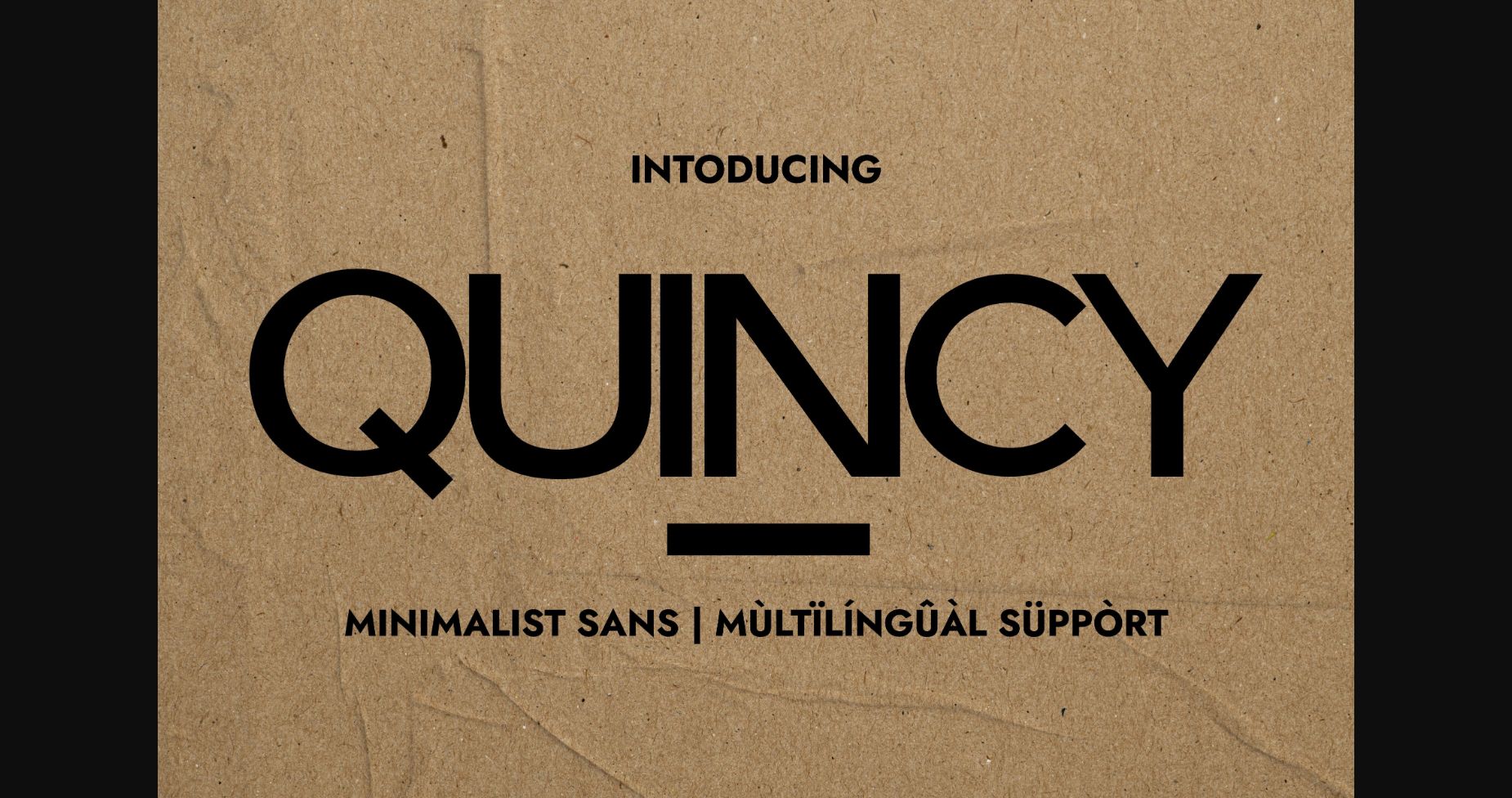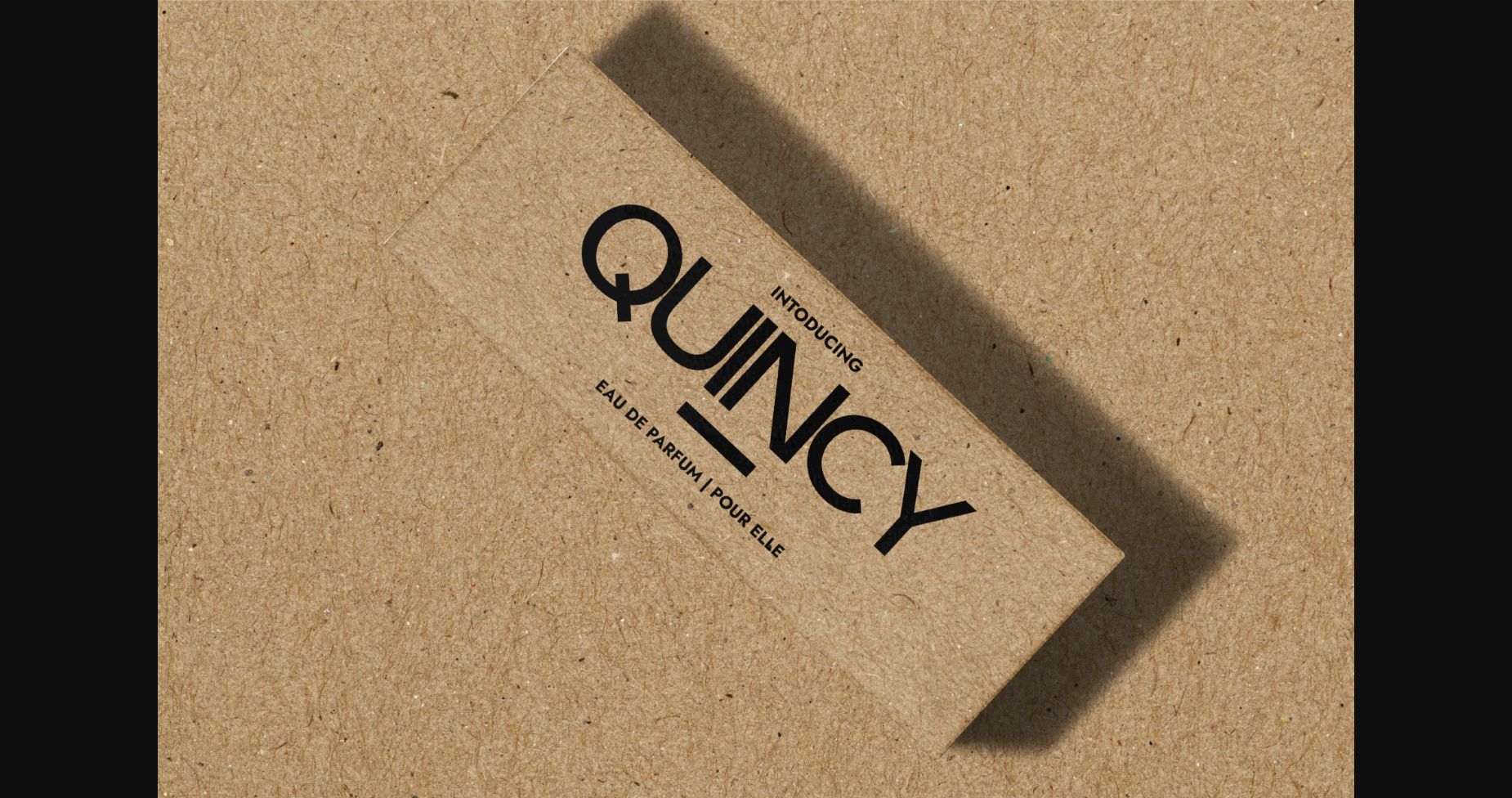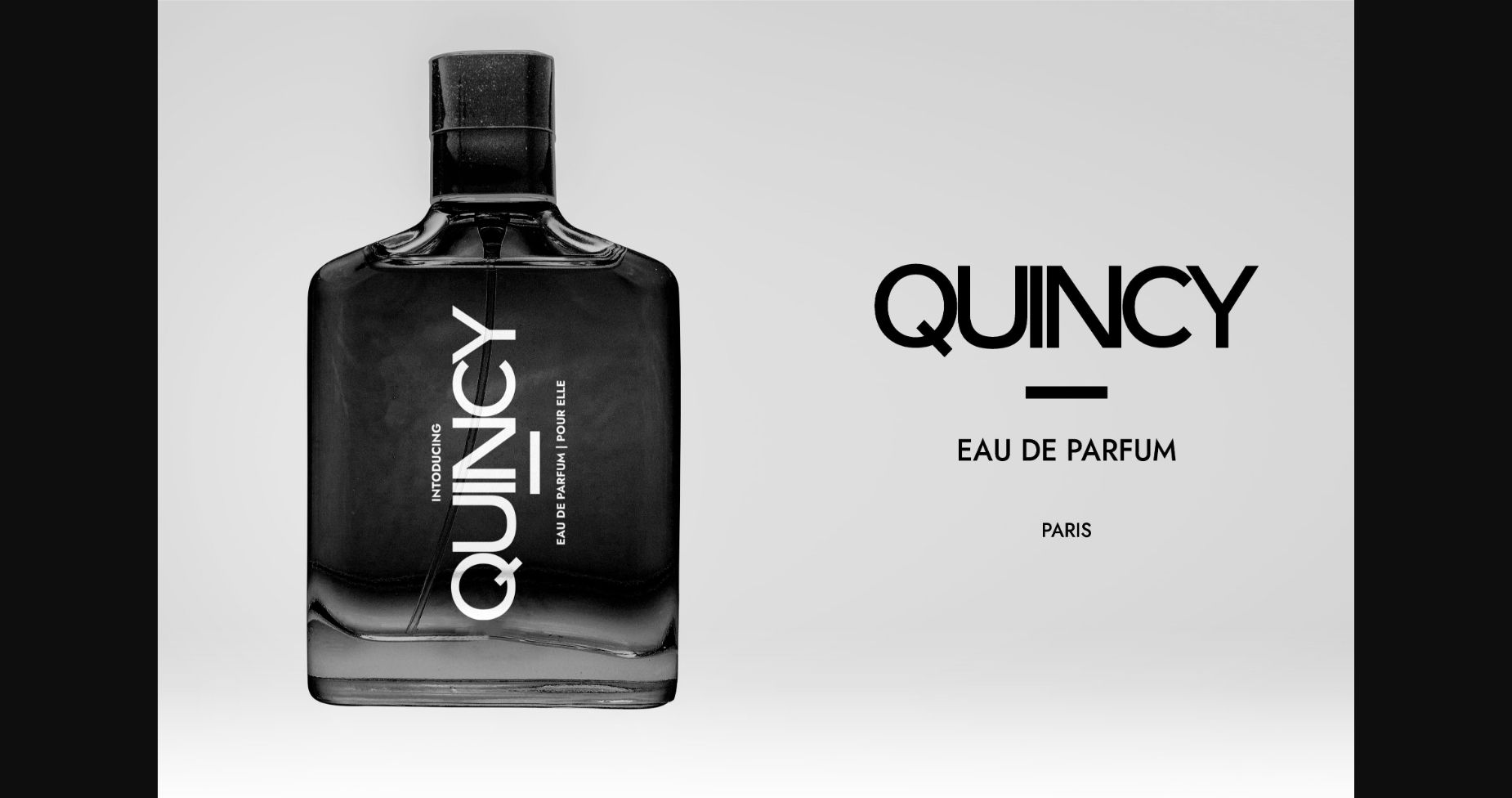
About Quincy Font
Quincy is a wide modern grotesque typeface, its sans serif aspect and little spacing renders it a vital choice when you want to add some huge impact on the eye and really draw attention. It is heavily inspired by swiss typeface rules. Add it confidently to your favorite creations and let yourself be amazed by the fabulous results obtained.